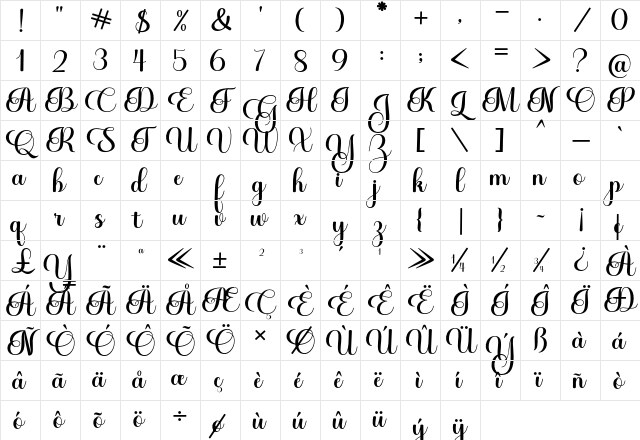
Complete Greating Regular glyph index. Displaying only characters natively supported by Greating Regular font.
Greating is a composed and adaptable typeface that performs quietly and consistently across a wide range of design contexts.